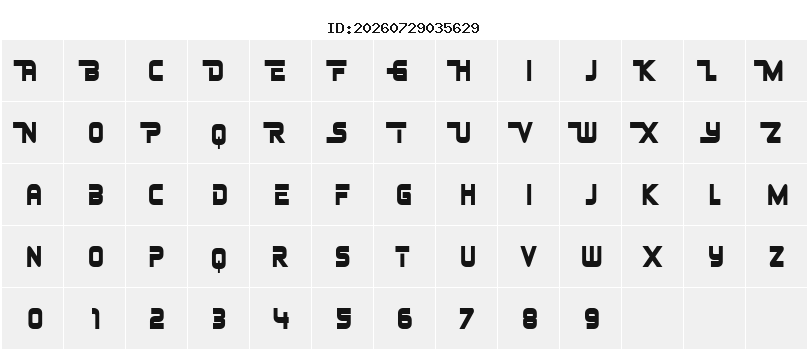
Johnny Fever Preview
• Font Name: Johnny Fever
• Full Font Name: Johnny Fever
About Johnny Fever.ttf
Johnny Fever.ttf is a modern, elegant sans-serif font designed for ultimate readability and visual harmony. Perfect for branding, headlines, web design, and print materials.